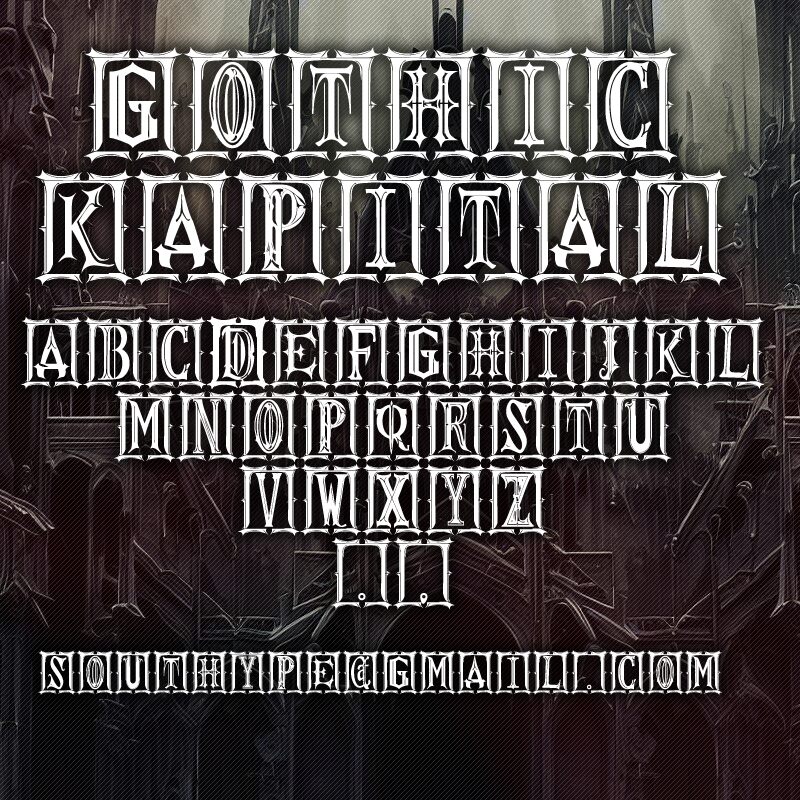
Gothic Kapital St is an exquisite font designed by Southype. With its gothic style and semi-light weight, this font adds a touch of elegance to any project.
Perfect for charitable campaigns, it brings a distinctive appeal to flyers, posters, and brochures. School newsletters will come alive with the captivating initials of Gothic Kapital St, leaving a lasting impression on parents and students alike.
Teachers can utilize this font for presentations or handouts, while university students can make their essays stand out from the crowd.
Even independent YouTube videos can benefit from Gothic Kapital St's unique charm (for unmonetized videos), enhancing visual storytelling in diverse genres such as horror or medieval content. Let your creativity soar with Gothic Kapital St!
Gothic Kapital St